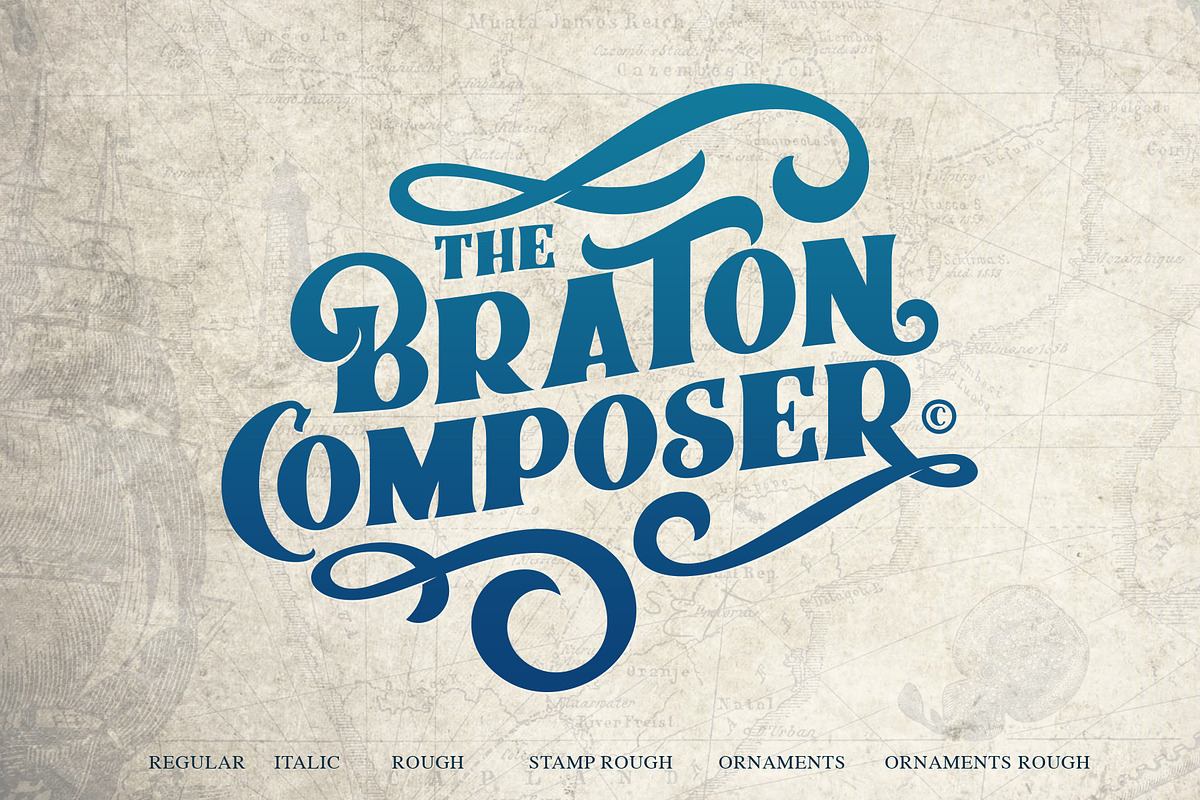
Create a visual masterpiece with the Braton Composer Typeface Free Download — a bold and elegant typeface designed to blend classic charm with modern precision. Its distinctive serif style and confident strokes make it ideal for logos, magazine titles, branding, book covers, and luxury packaging.
Braton Composer offers a perfect mix of sophistication and creativity. With its sculpted letterforms and artistic balance, it evokes the rhythm of a well-composed symphony — each glyph hitting just the right note. Whether you’re designing for high fashion or high-end editorial, this font brings a refined yet fresh look to the table.